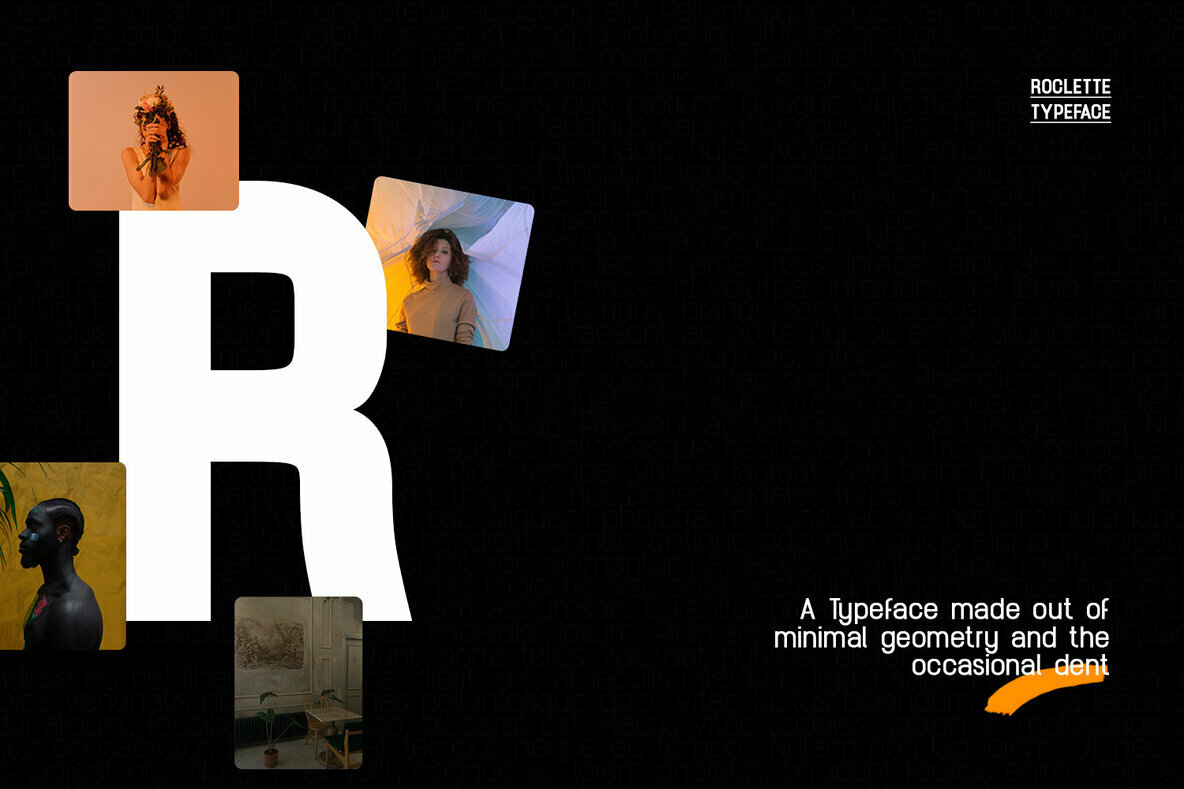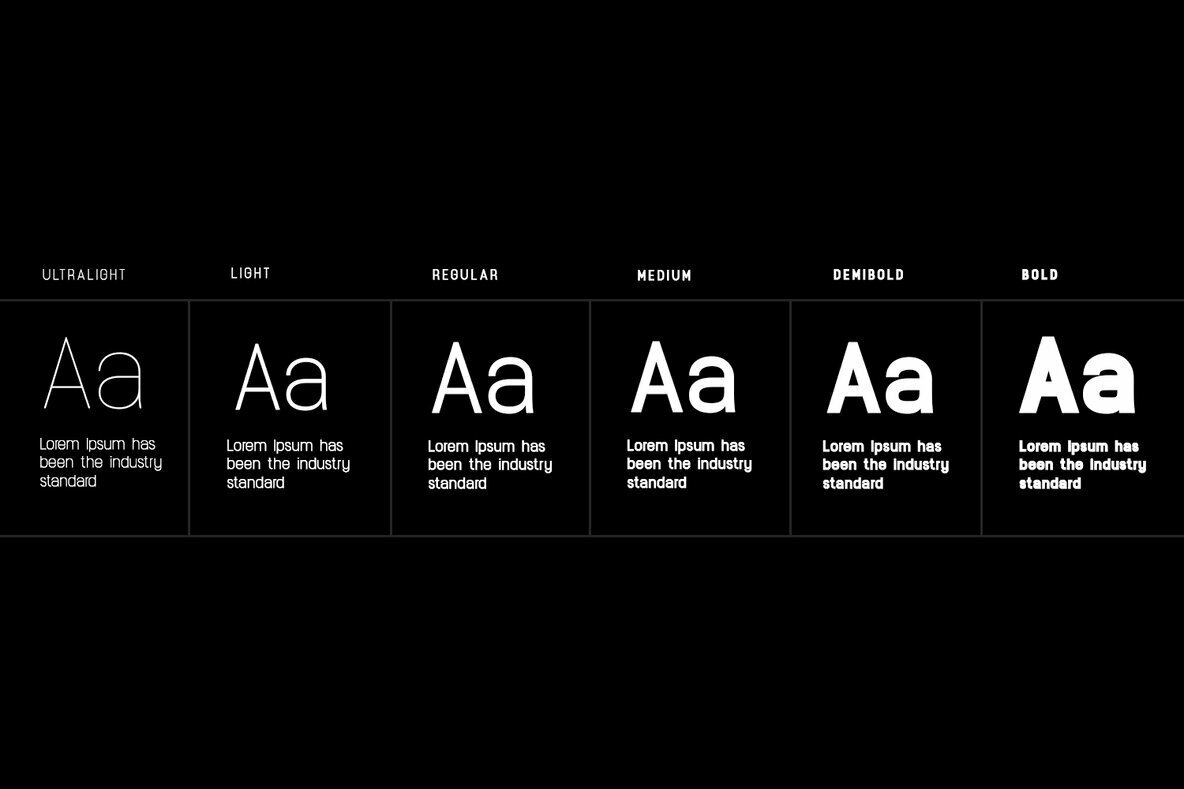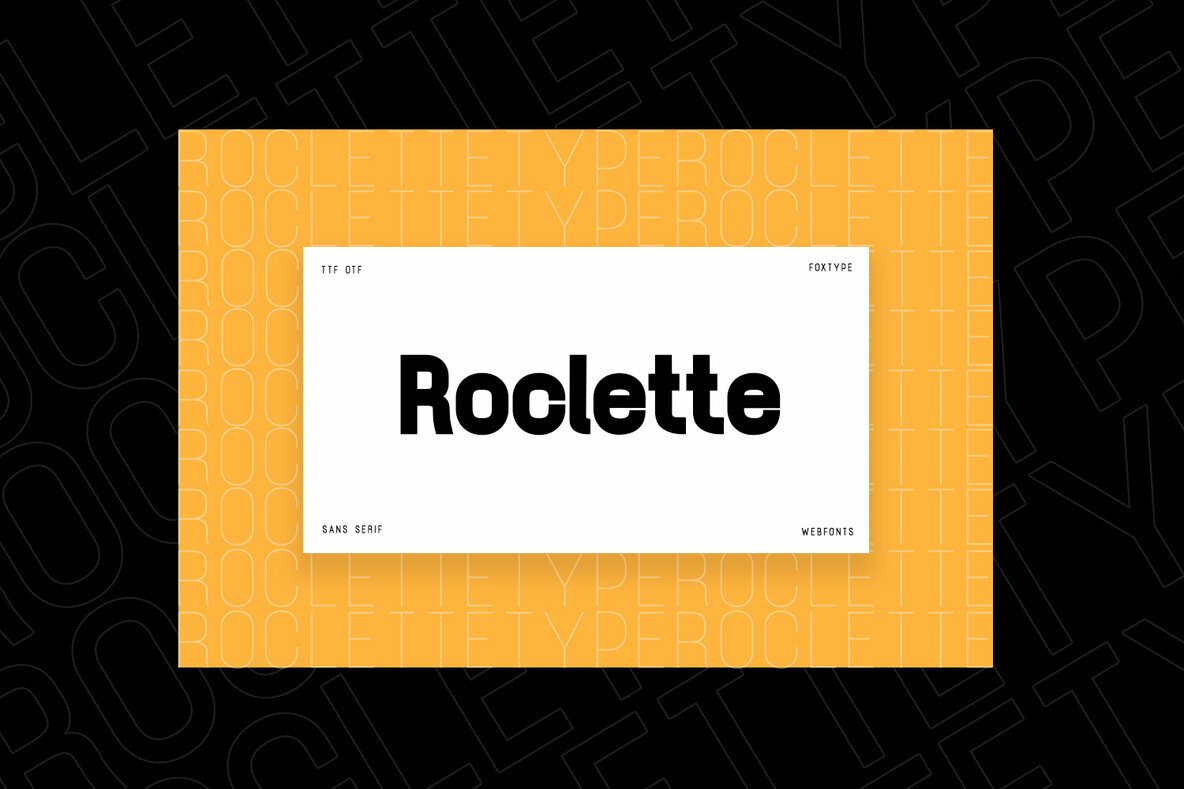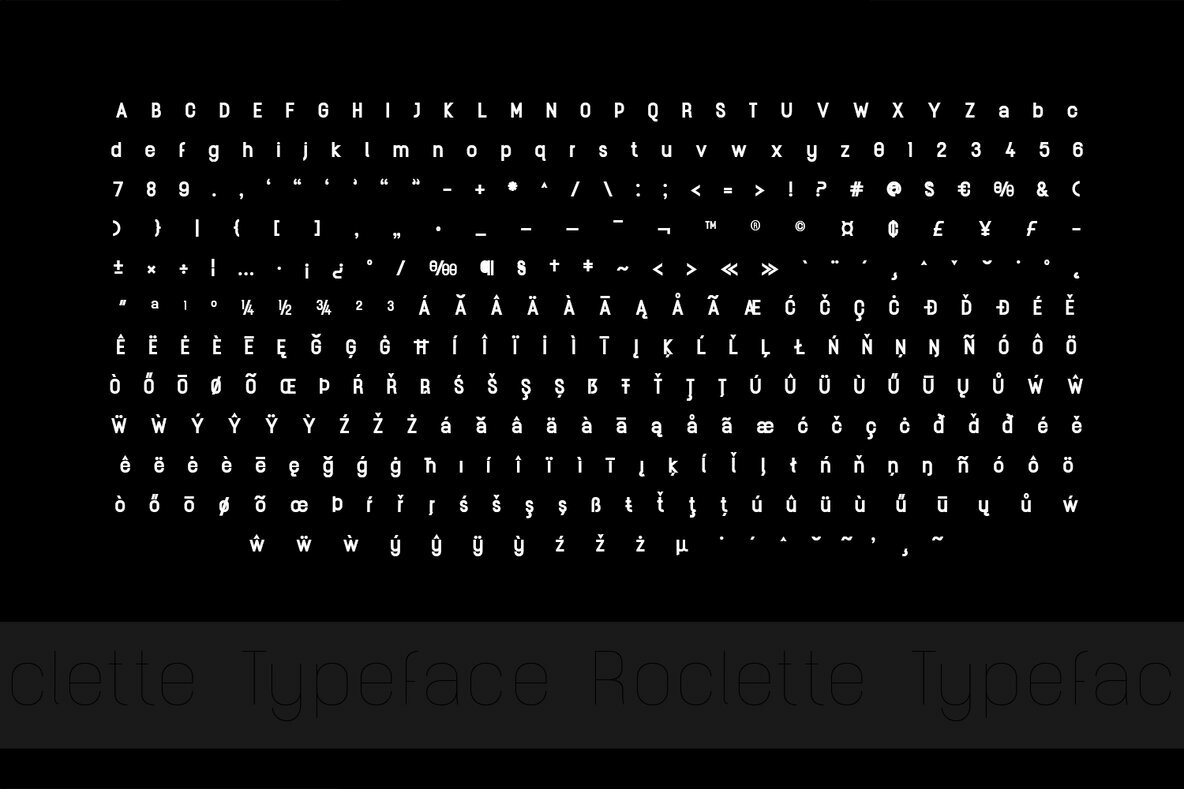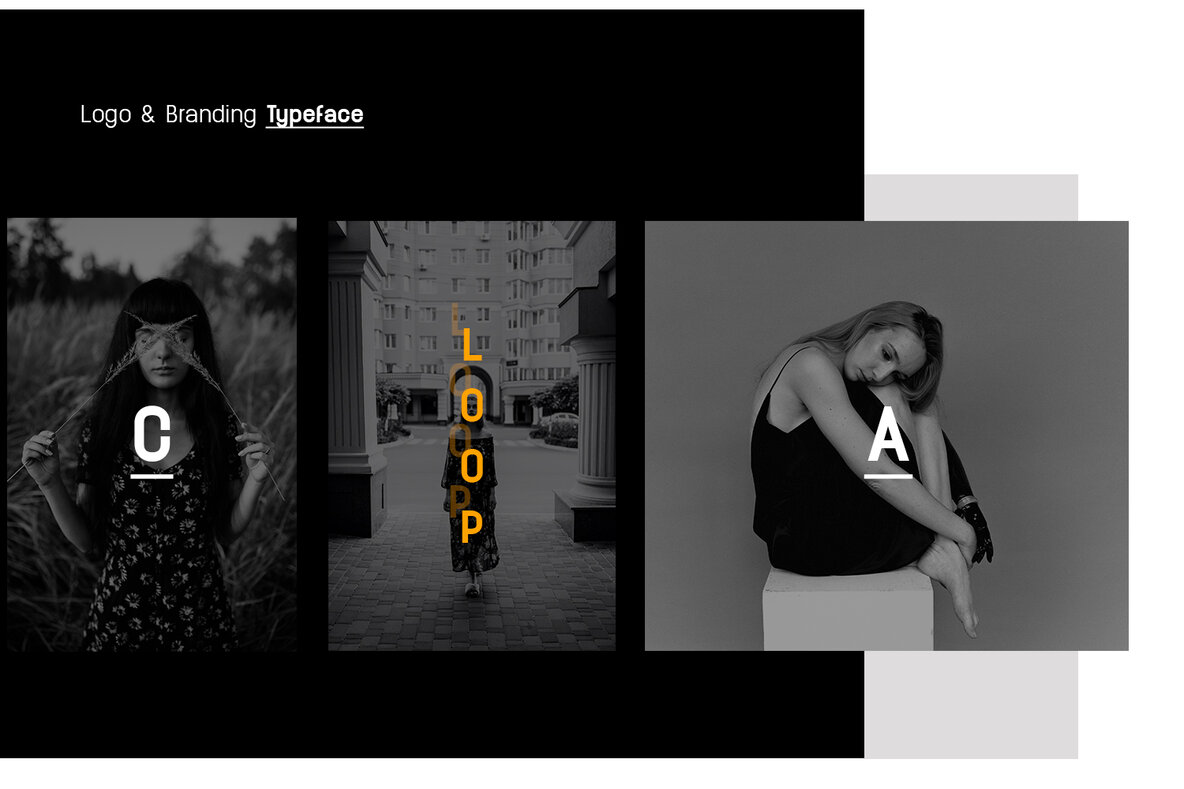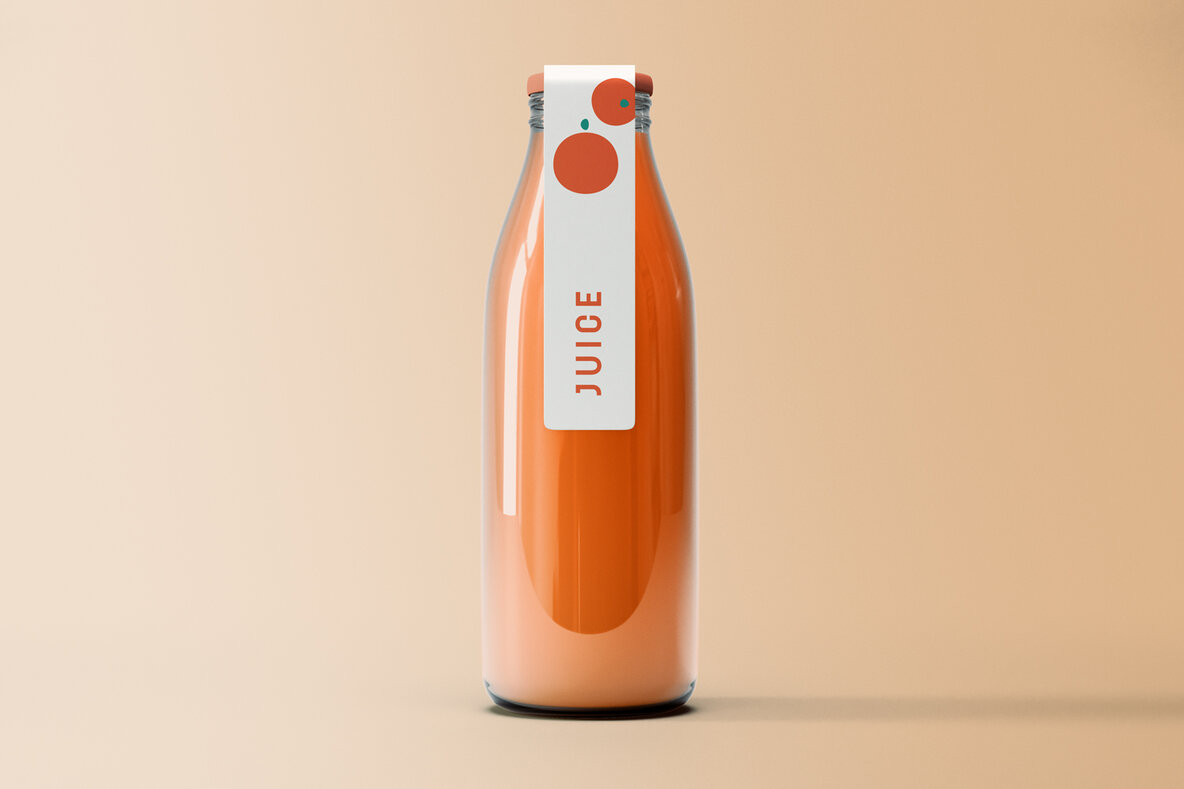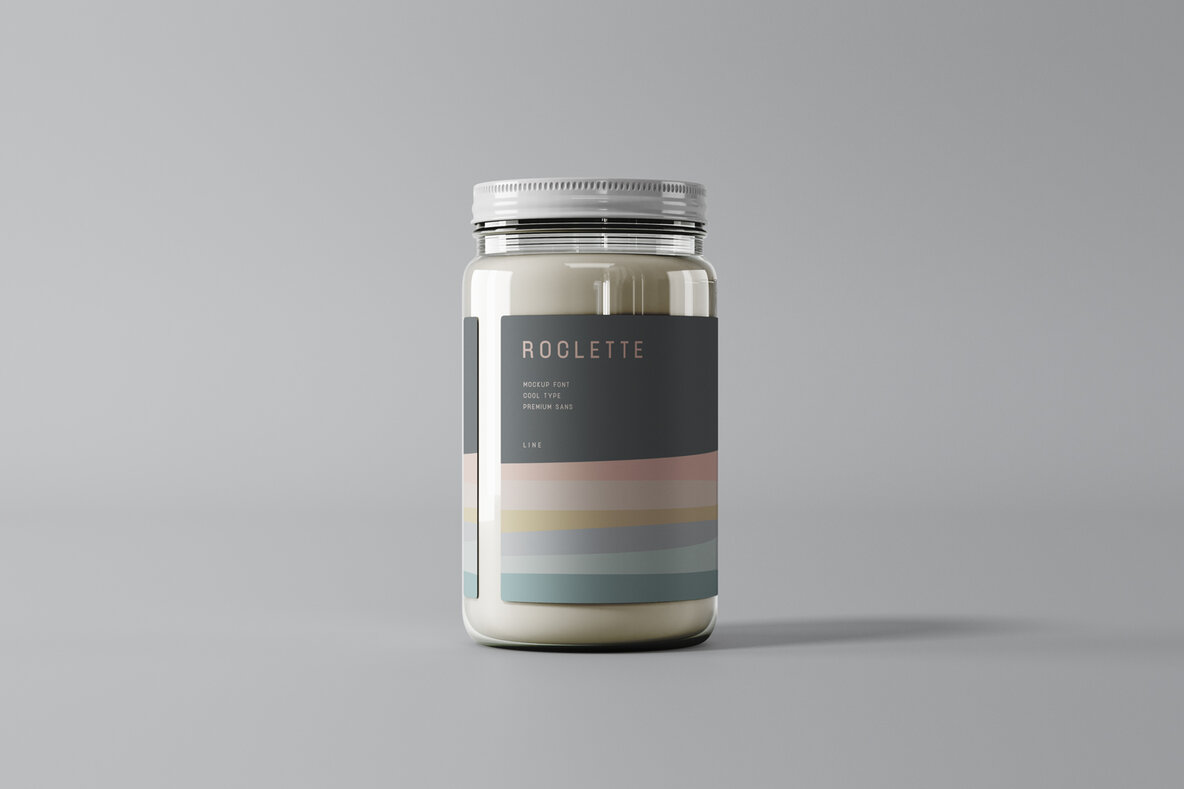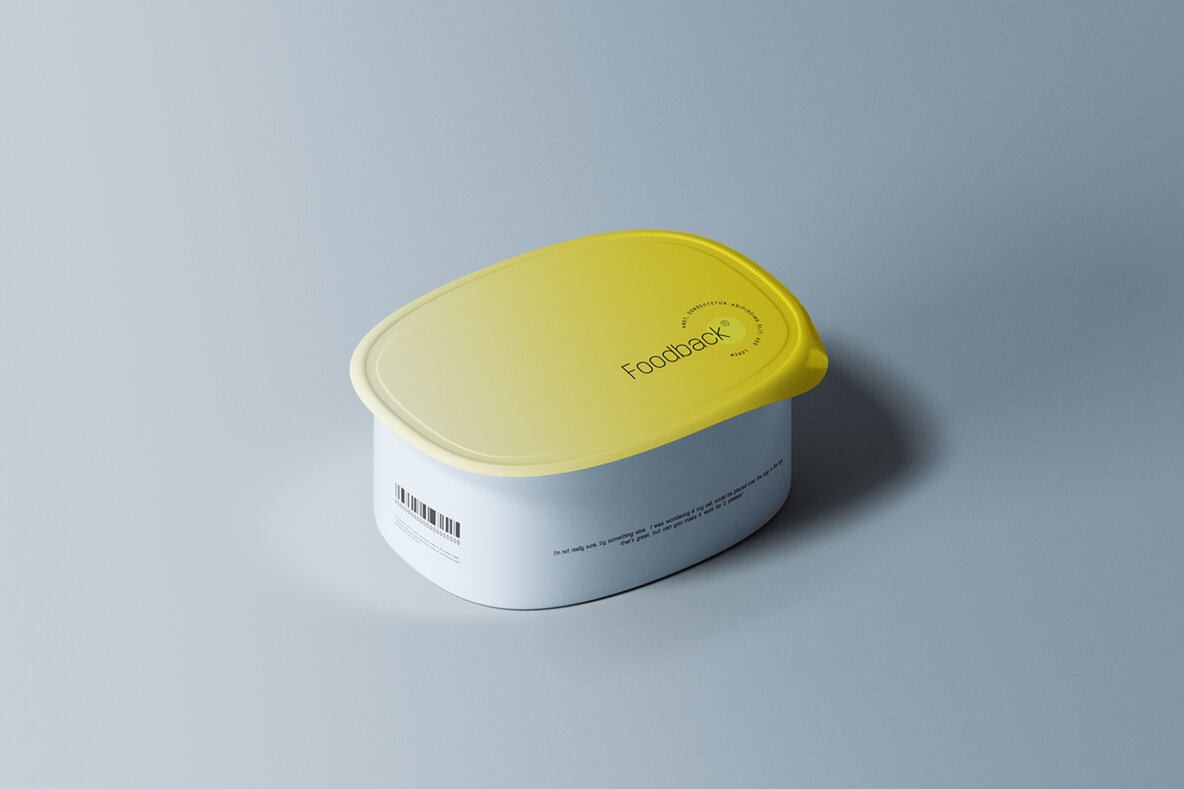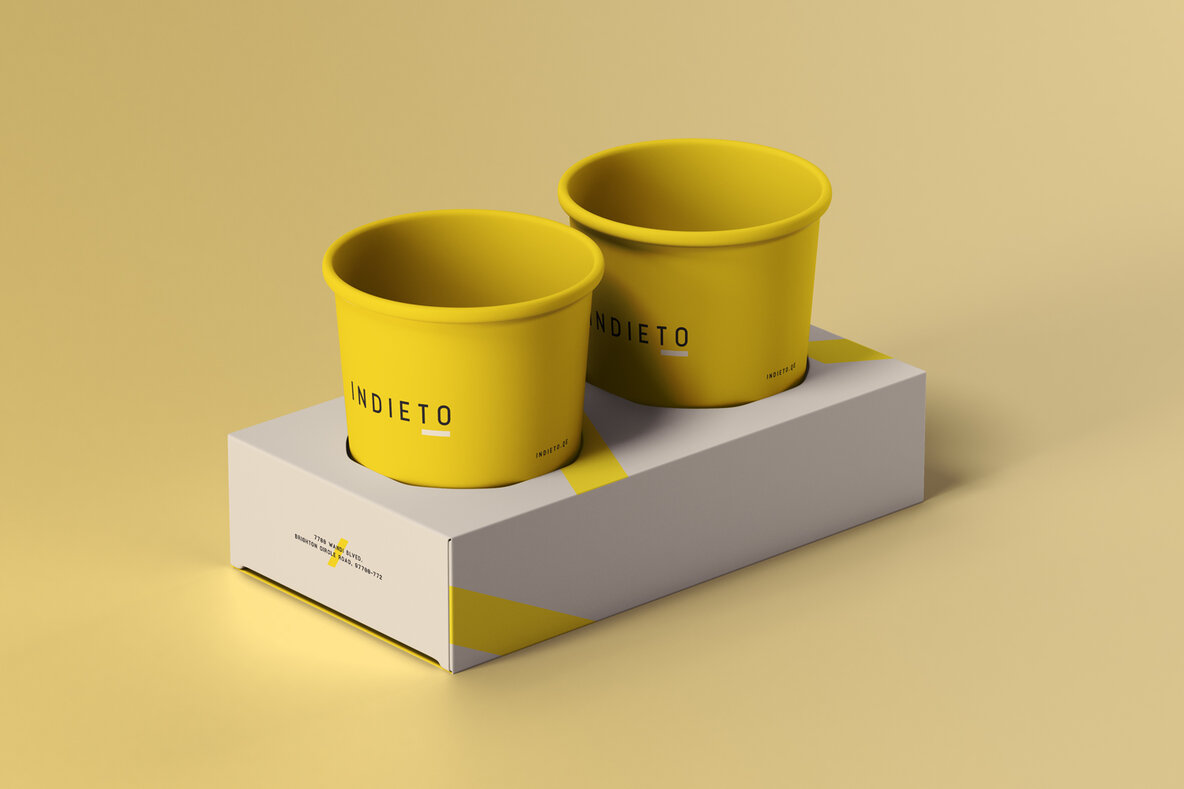
Roclette Display Font
Roclette Display emerges as a commanding presence in the world of typography. With a design that balances dependable letterforms and contemporary flair, this typeface excels in various visual applications. Perfectly suited for logos, magazines, and cinematic endeavors, Roclette Display is equally compelling in branding, headlines, captions, and posters. Its wide range of weights encourages creative exploration while maintaining clarity and aesthetic charm.Roclette Display: A Blend of Elegance and Versatility